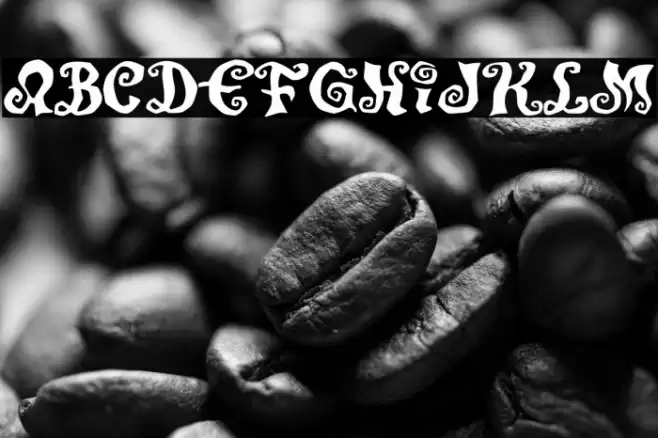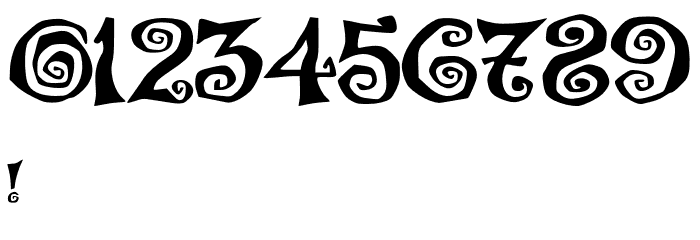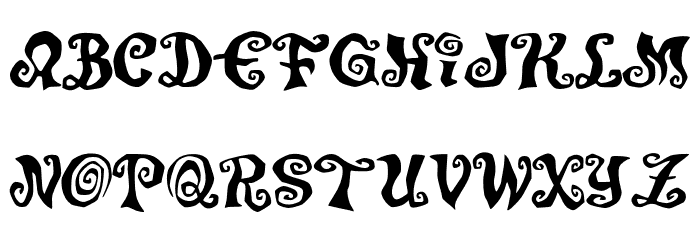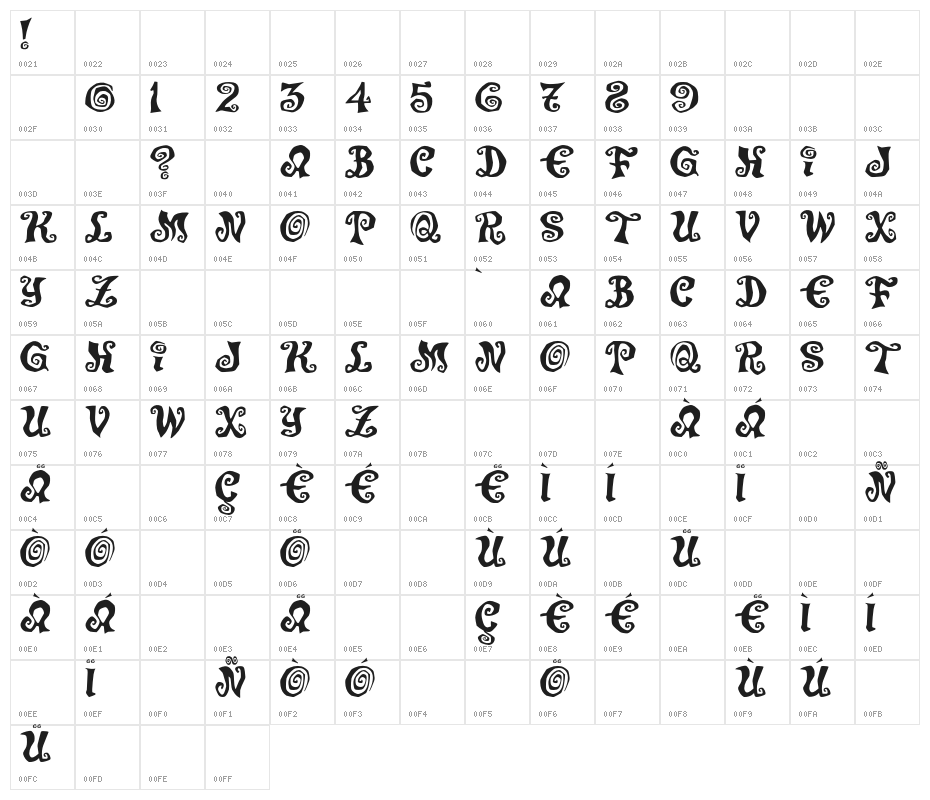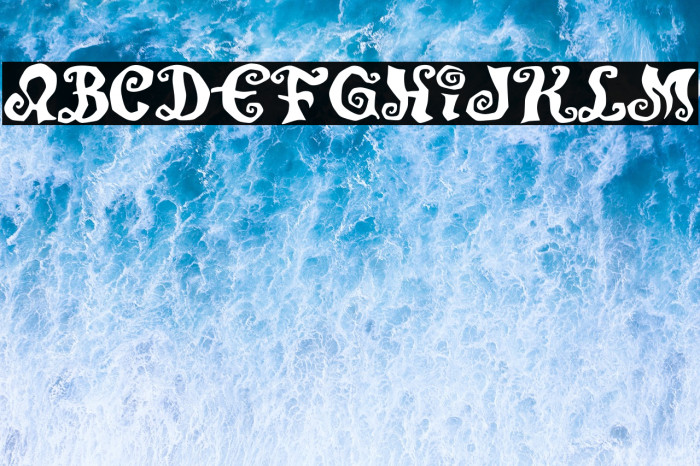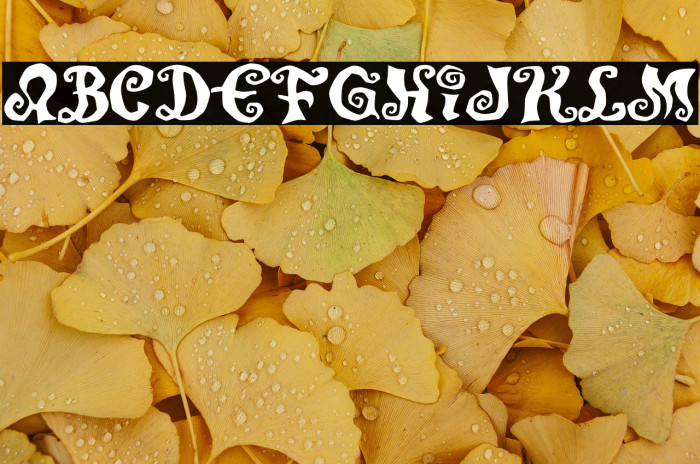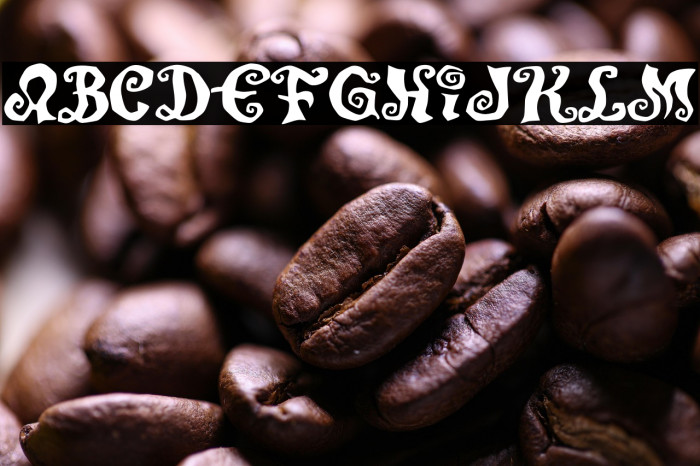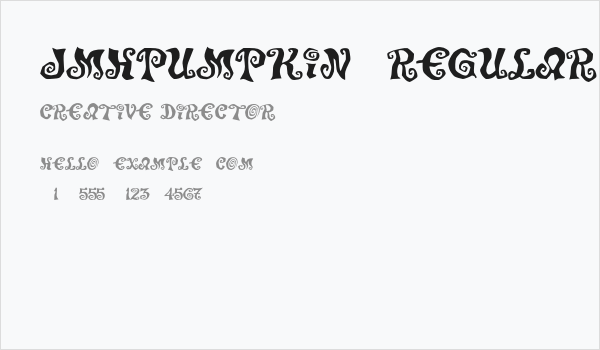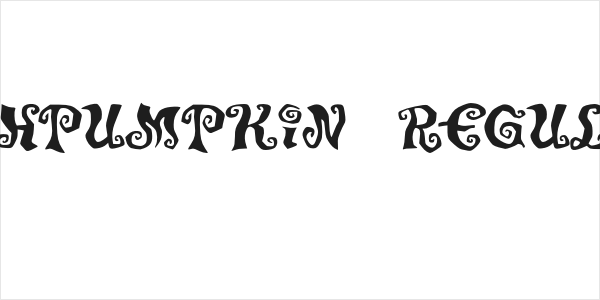
JMHPumpkin-Regular Font
JMHPumpkin-Regular Description
This font features a whimsical and playful design, characterized by its swirling and curvy elements that give it a lively and festive appearance. The letters are bold and have a decorative flair, with each character incorporating unique spiral motifs and exaggerated curves. The numbers and special characters follow the same playful theme, making the font ideal for creative and fun projects. Its distinct style captures attention and adds a touch of personality to any design.
A whimsical and playful font with swirling, decorative elements from Uncategorized fonts.
- Font: JMHPumpkin-Regular
- Proposed Projects: Ideal for Halloween-themed designs, party invitations, children's book covers, and festive banners.